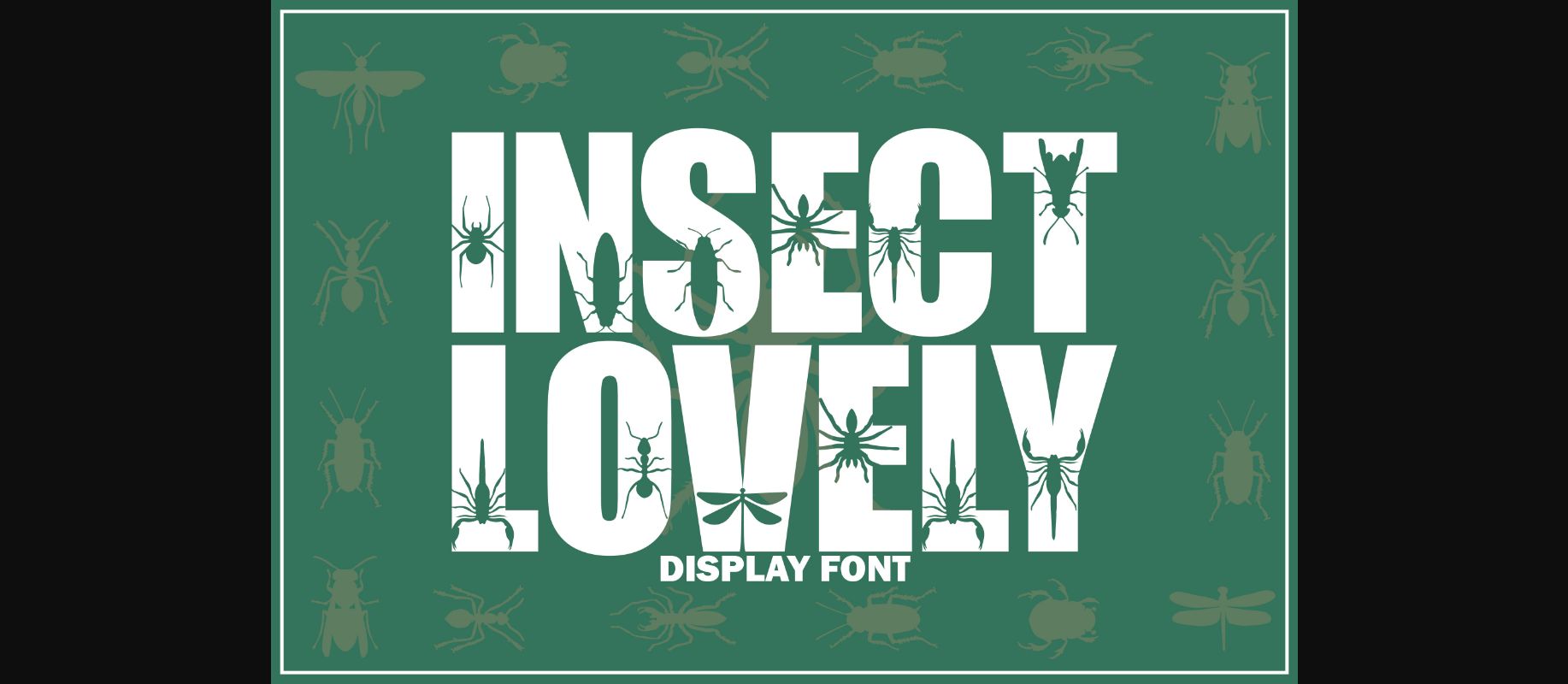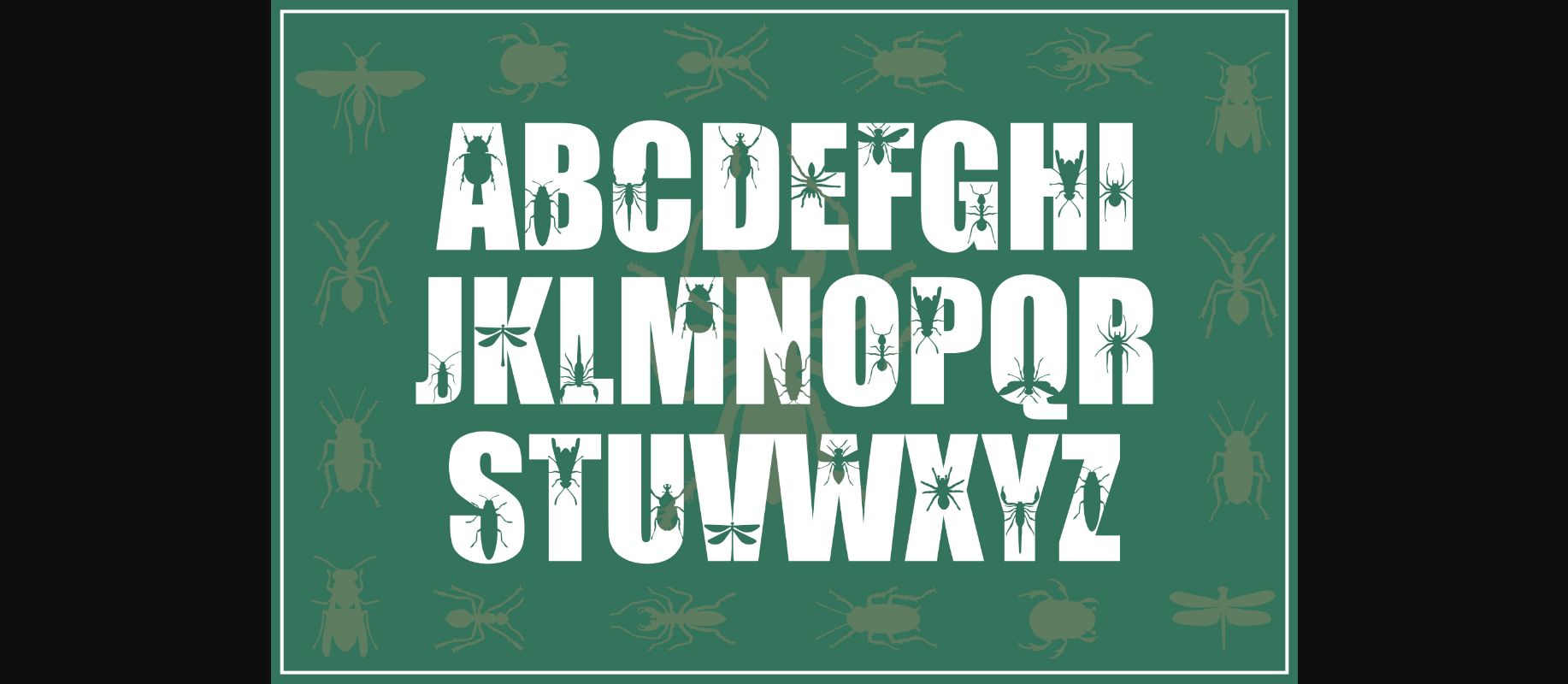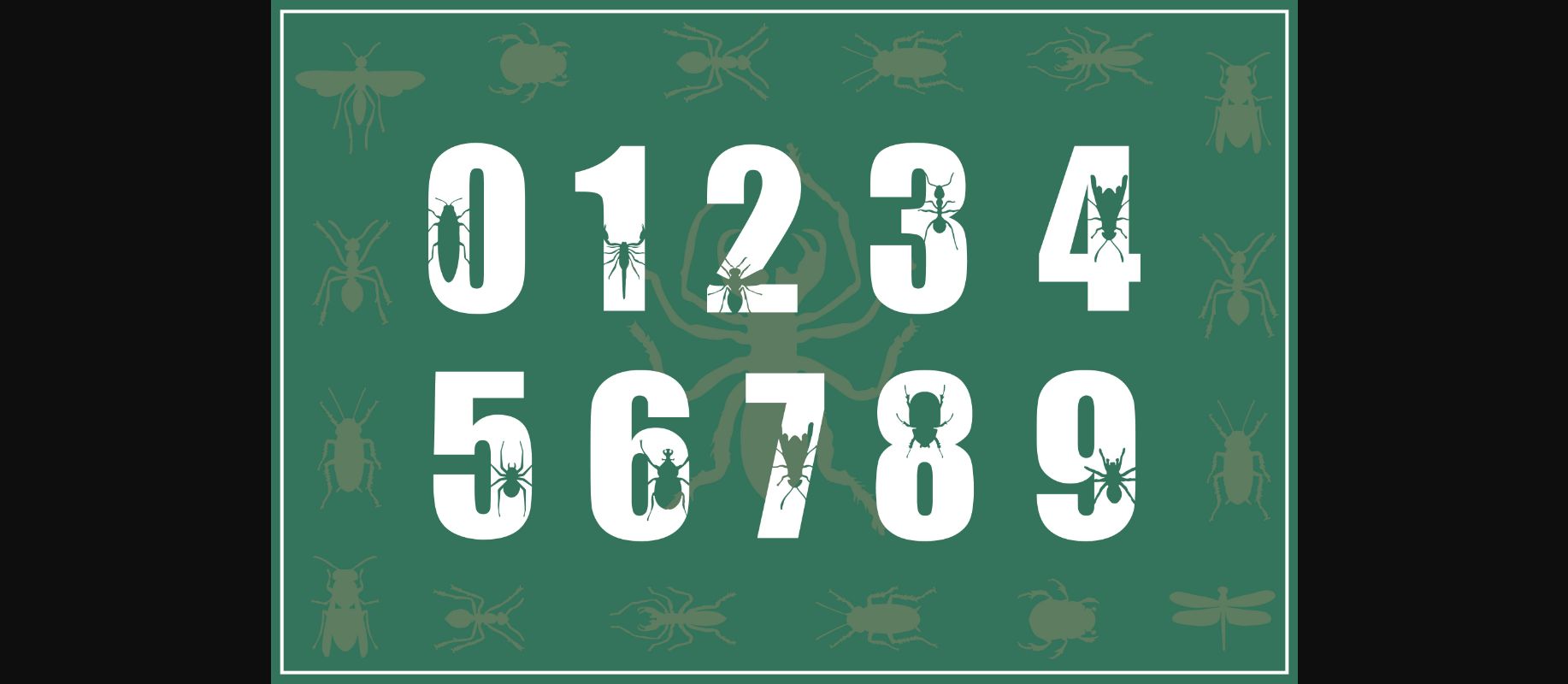
About Insect Lovely Font
Insect Lovely is a dramatic decorative font. It is perfectly suitable for any design or crafty idea! Add it confidently to your projects and you will love the results!